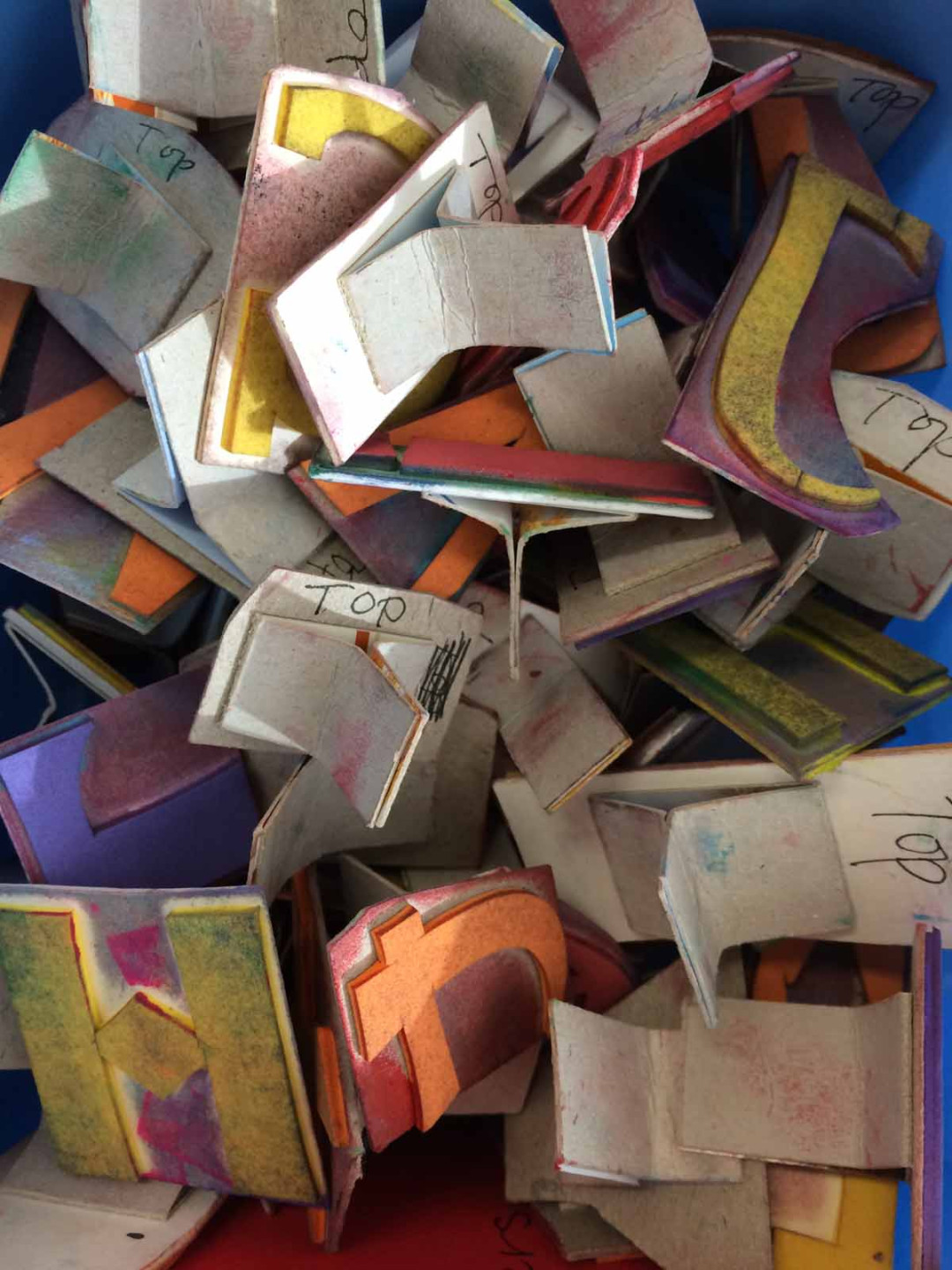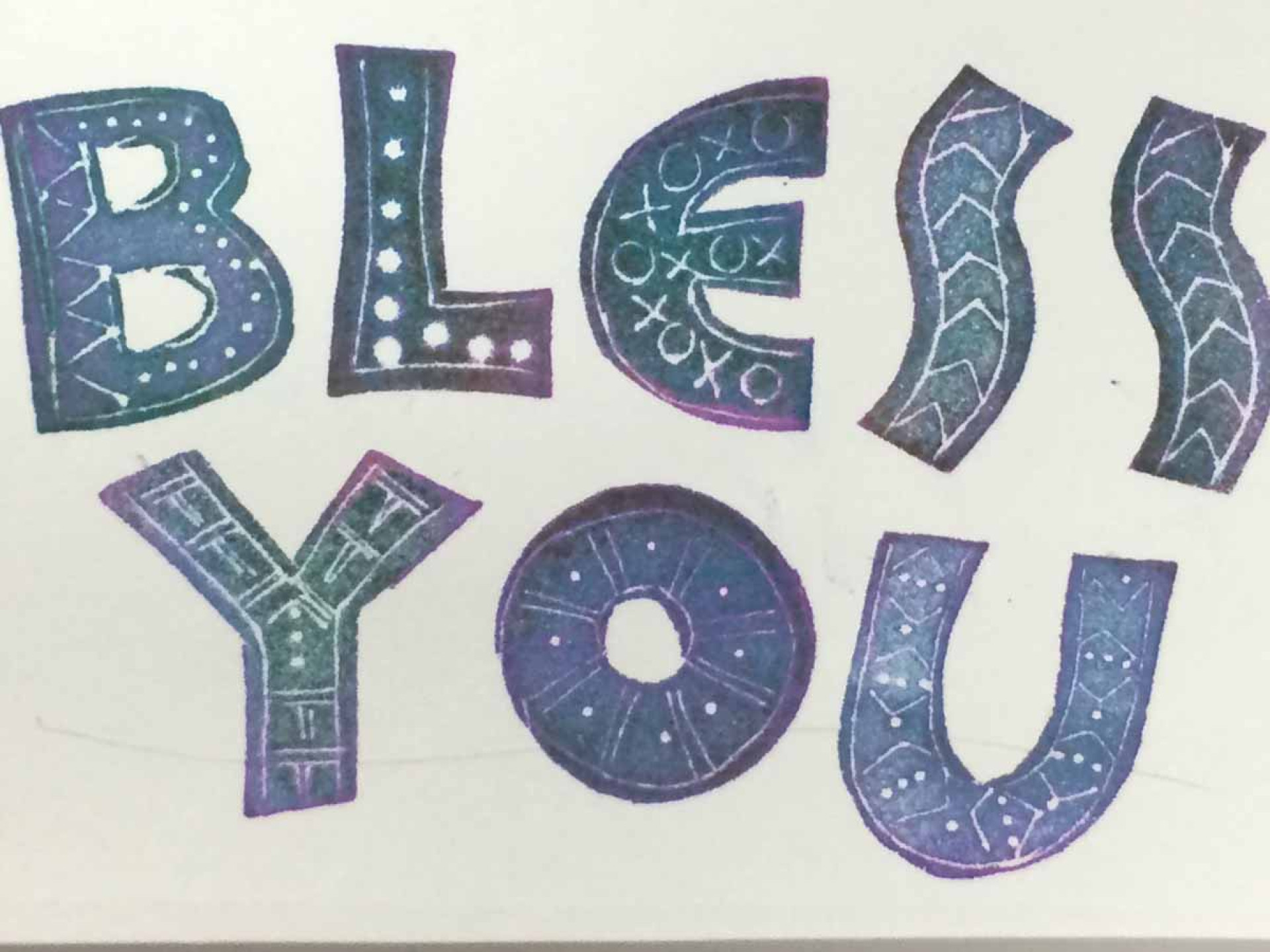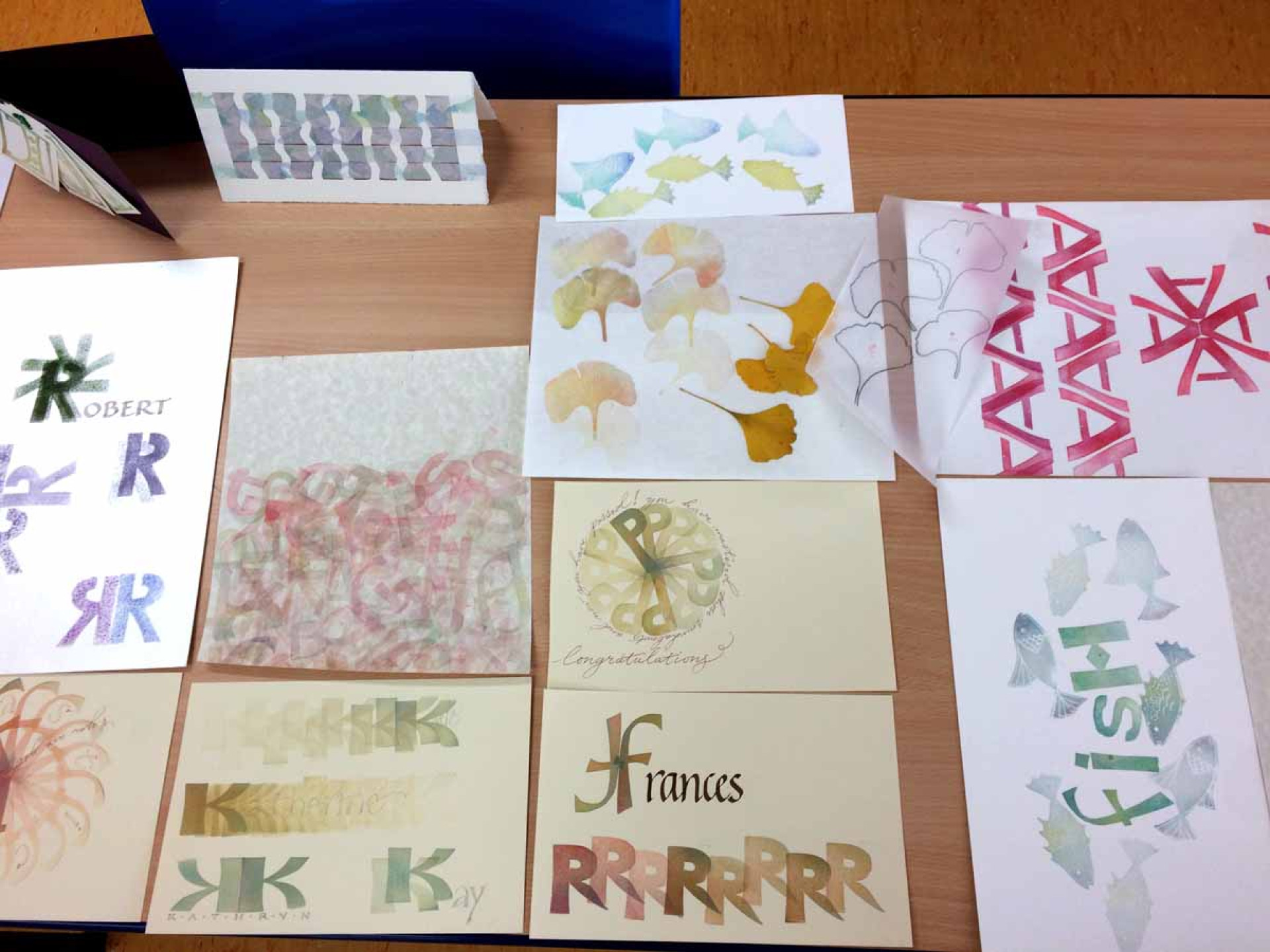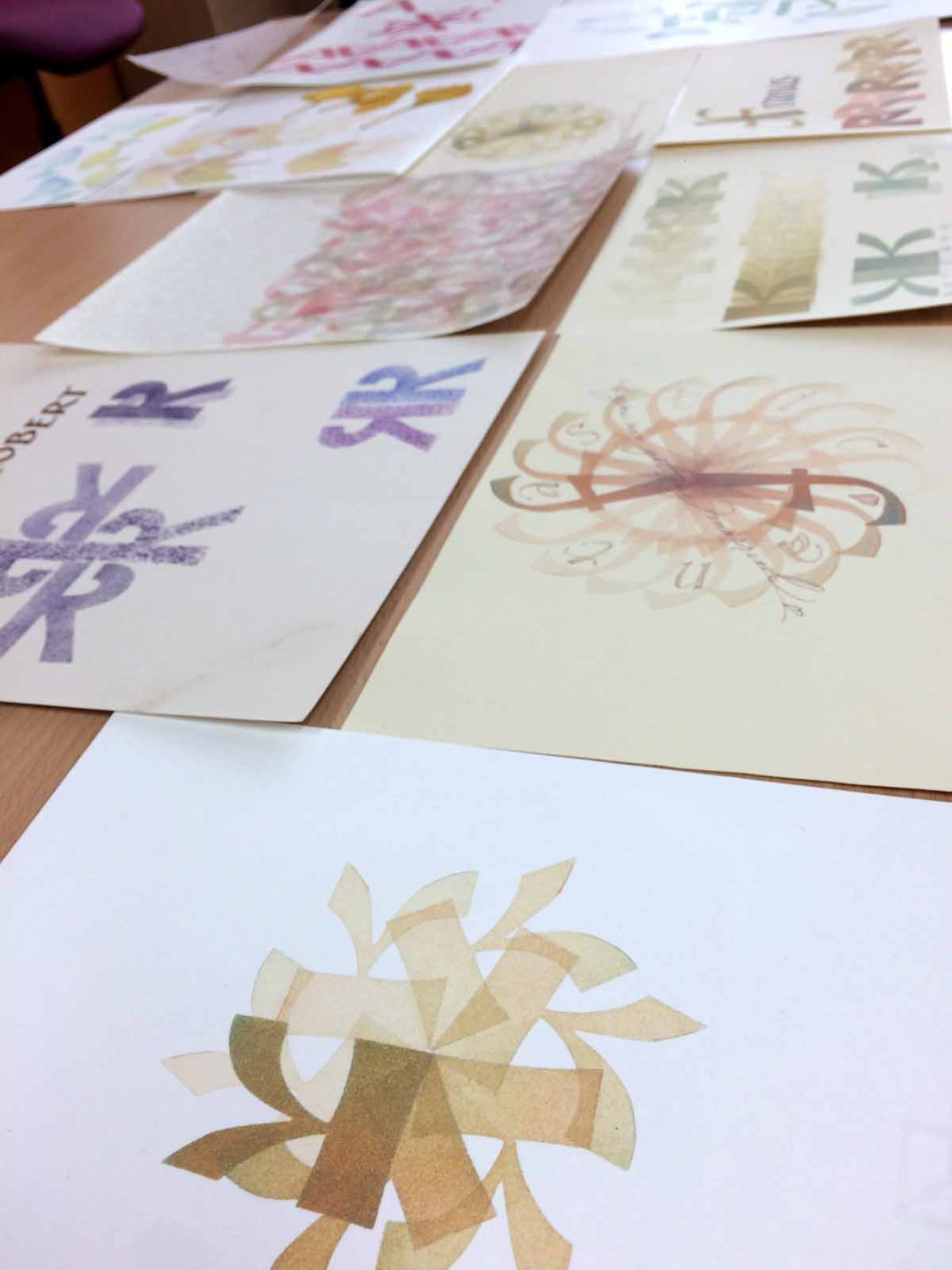
Funky foam workshop with Nicola Dunn
At Nicola Dunn’s Fun Foam Printing Workshop, we had FUN at the heart of it. We arrived, armed with sheets of funky foam, cardboard and cutting mats and the day ahead proved pressure-free, fun, creative and inspirational. Holistic play-therapy for grown-ups perhaps!
It was fab funky-foam fun from start to finish. We were a happy harmonious group. Nicola’s display of funky-foam- printing whet the appetite, stirred the imagination, as her beautiful letters, geometric patterns, images of fish and leaves – printed in assorted subdued colours – tantalised and inspired us.
Nicola demonstrated the process of creating an image and making the foam stamps, complete with handles, then set us free to explore our own shapes, patterns, colours and ideas. Soon we were stamping stars, trees, holly, fish and even unicorns to our hearts’ content.
We explored different papers and surfaces – tissue papers, paper with texture, even a paper cup got printed! Pigment and ink stamp pads were compared for results, mixing colours to ‘muddy’ them, and gold and silver pads added surprisingly effective shimmer and sparkle. This was so addictive and pleasing it was hard to stop for lunch!
In the afternoon Nicola demonstrated designing and cutting letters – where one needs to be conscious of reversing the image in order to print the correct way round. By the end of the afternoon we had a surprisingly wide range of lettering, patterns, images and ideas displayed.